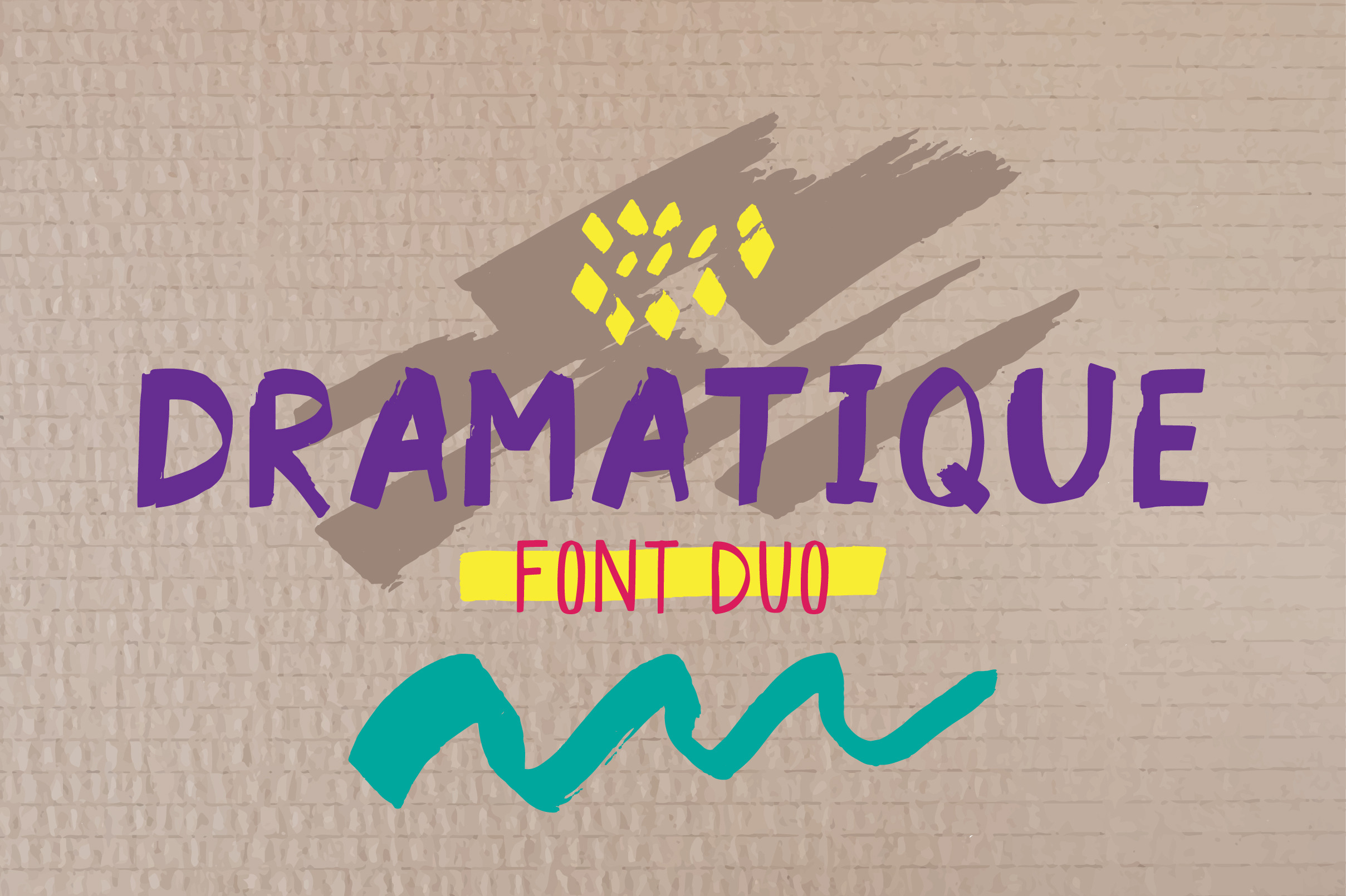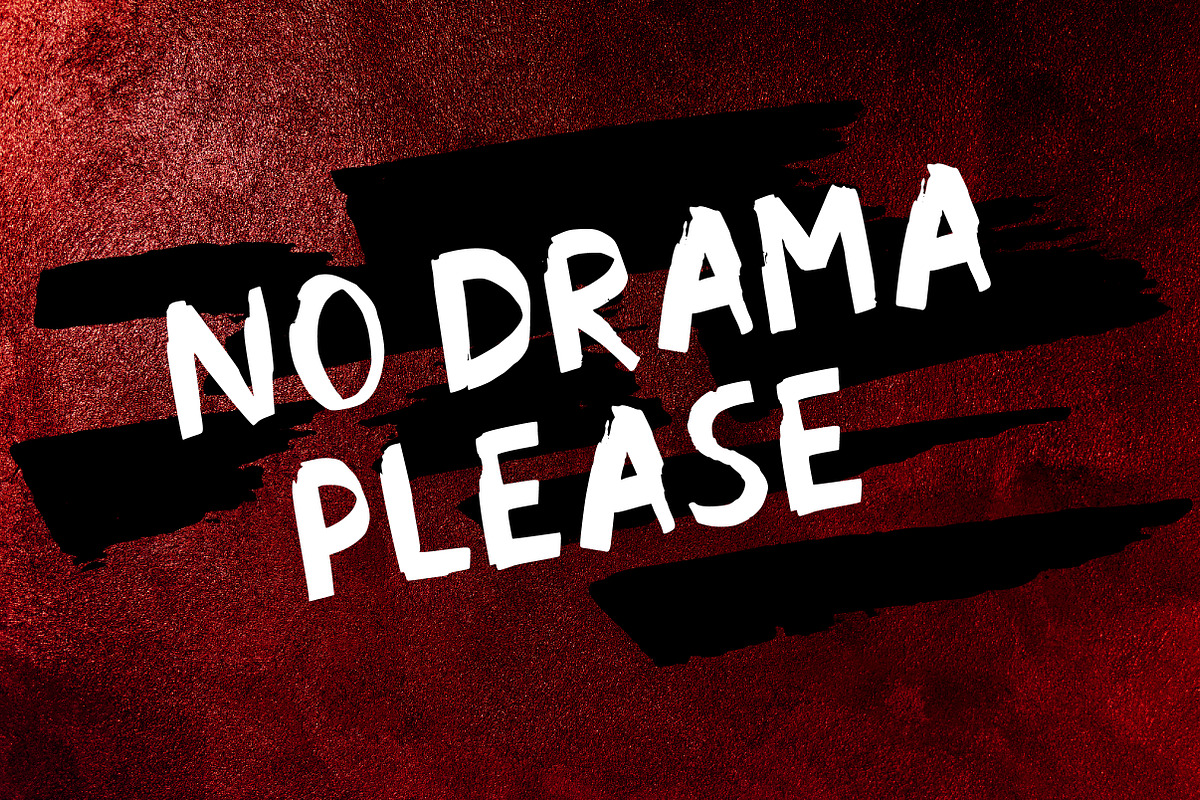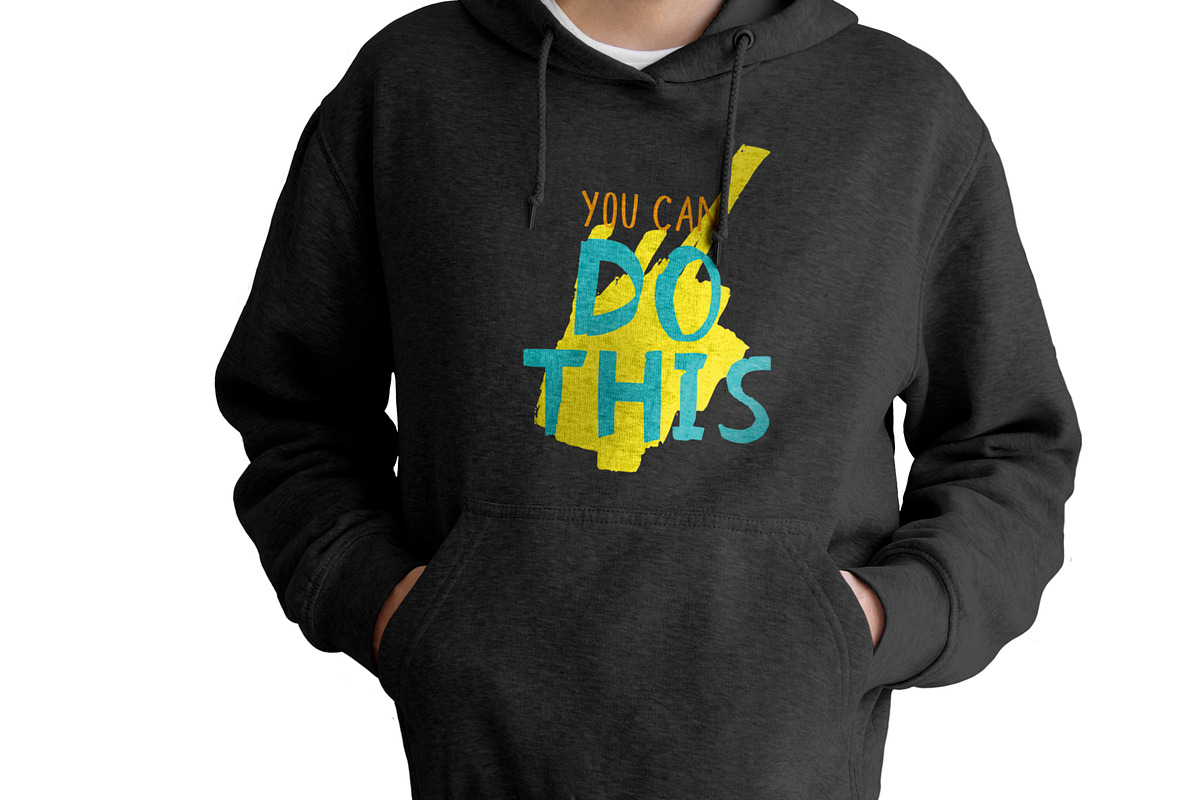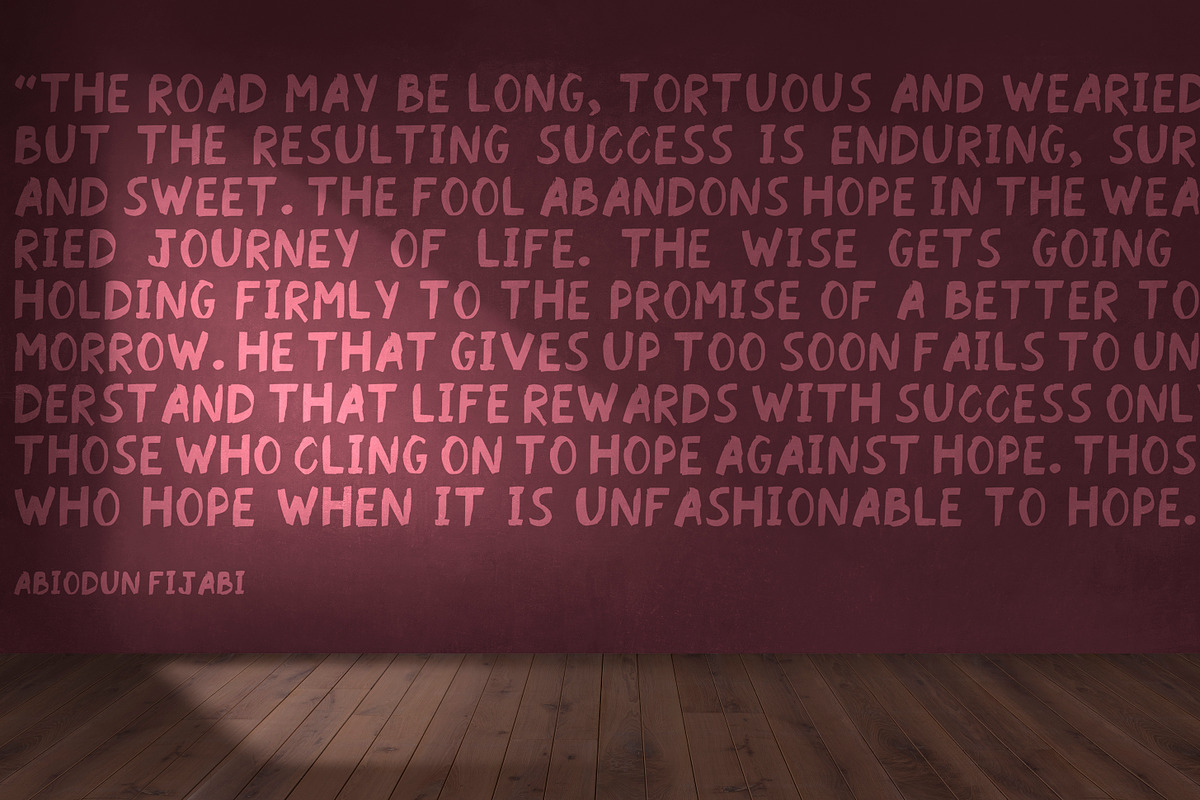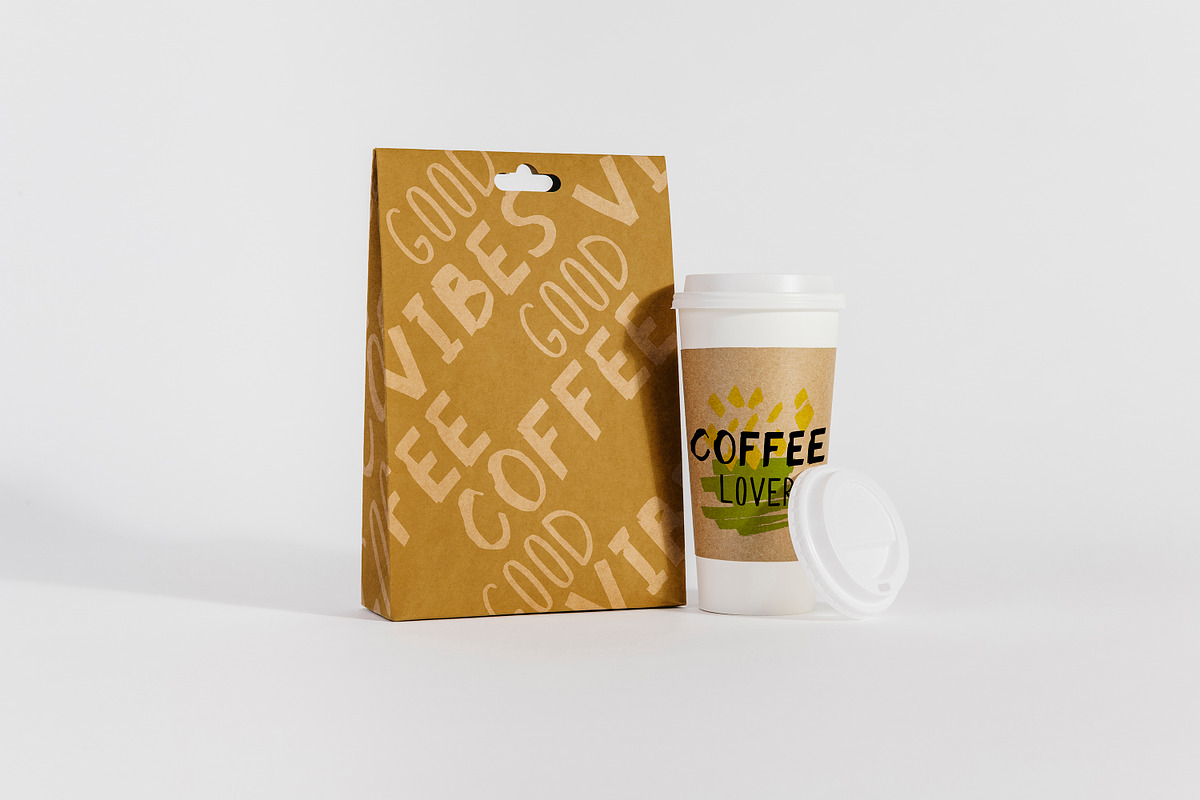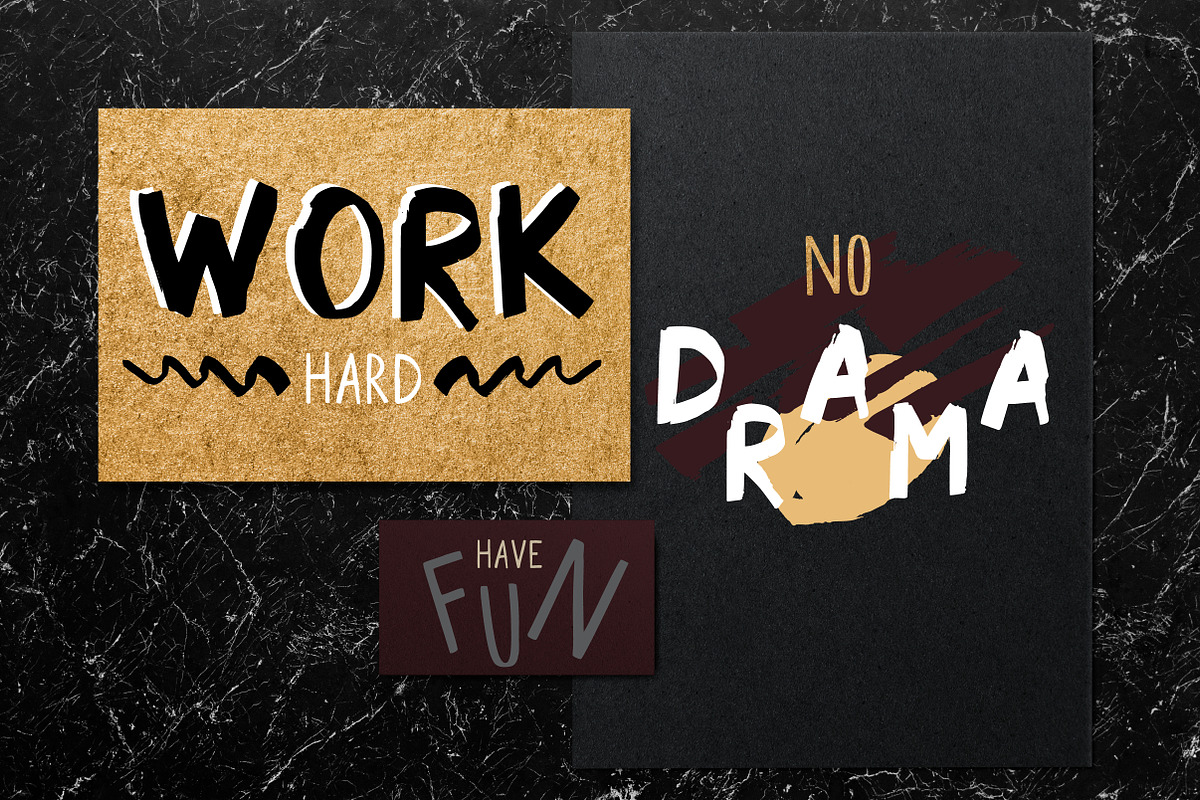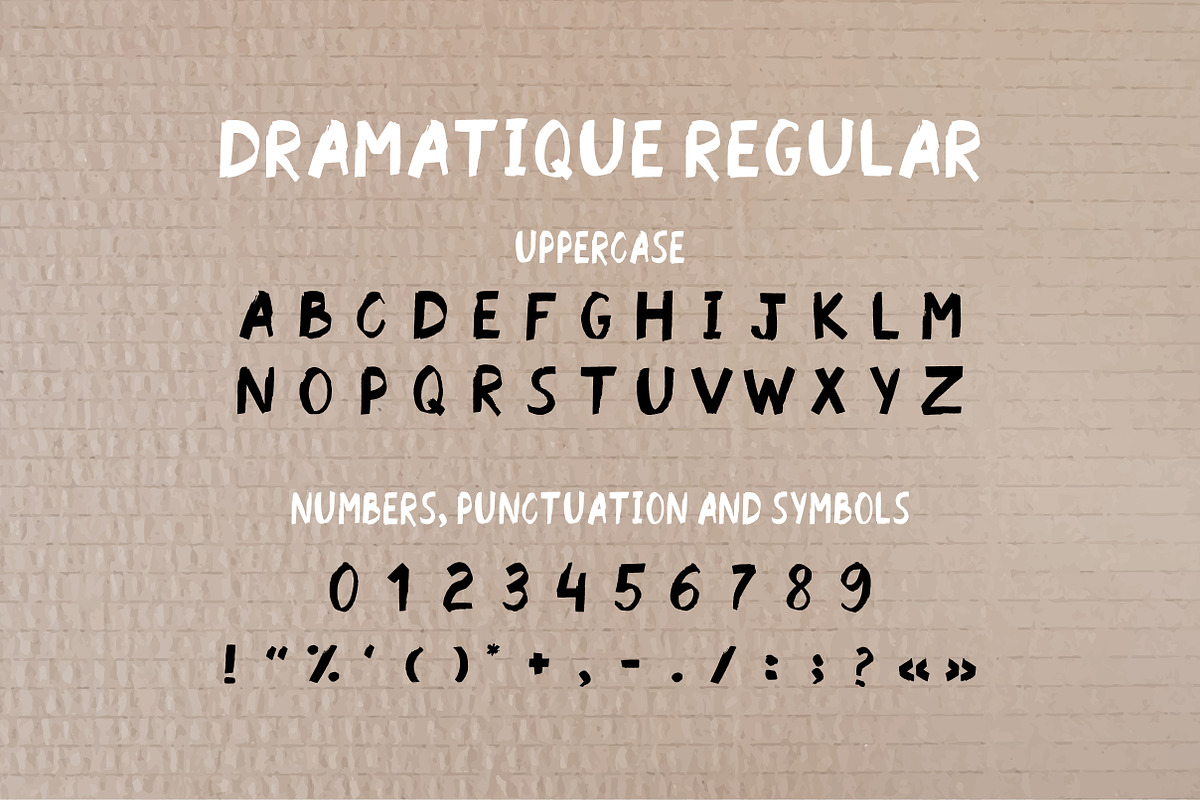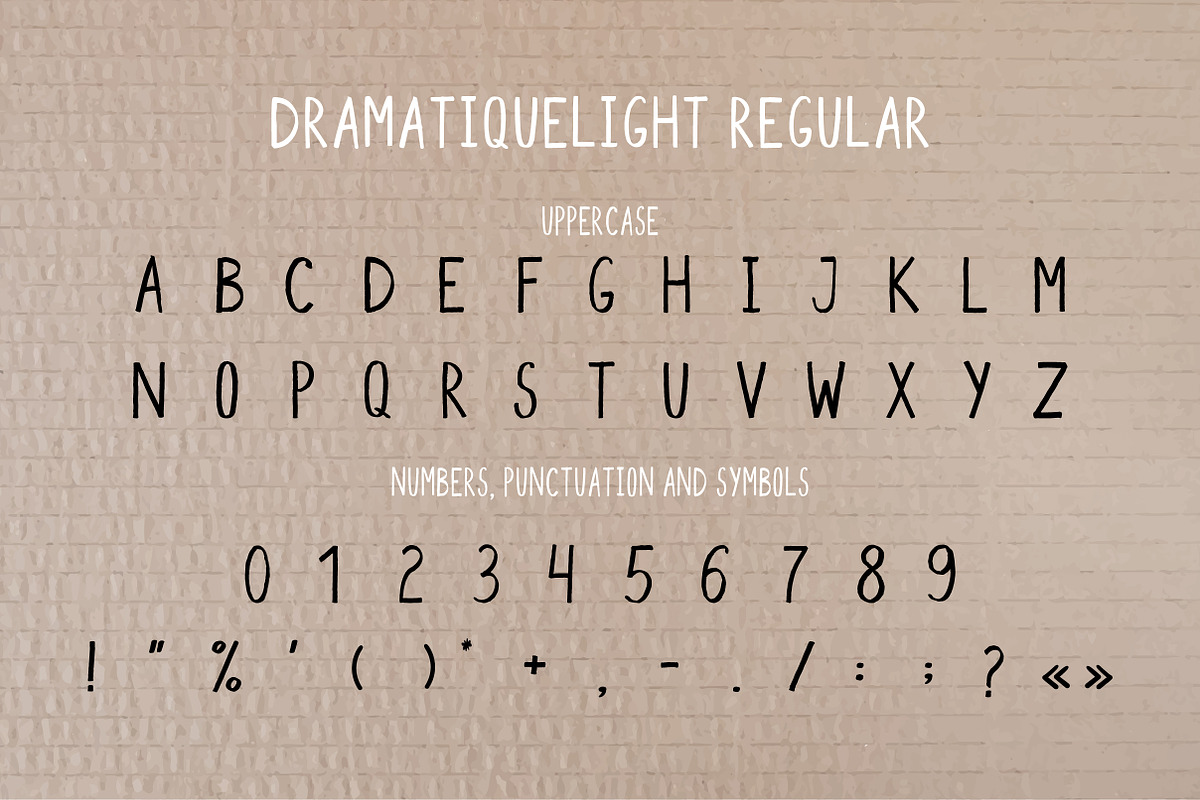
DRAMATIQUE Font Duo + Elements
''Dramatique regular'' and ''Dramatiquelight regular'' a super fun and playful hand-lettered bold Font duo. It Will be perfect for the decoration of postcards, posters, clothes and different printing products.